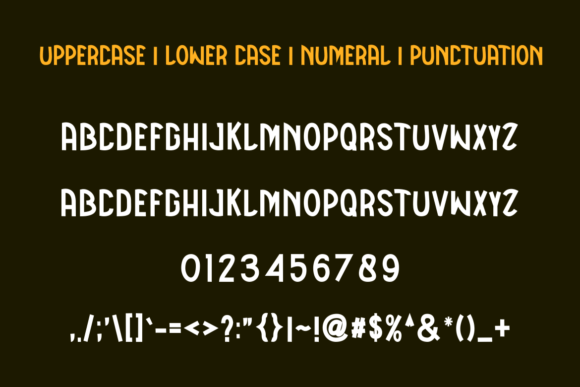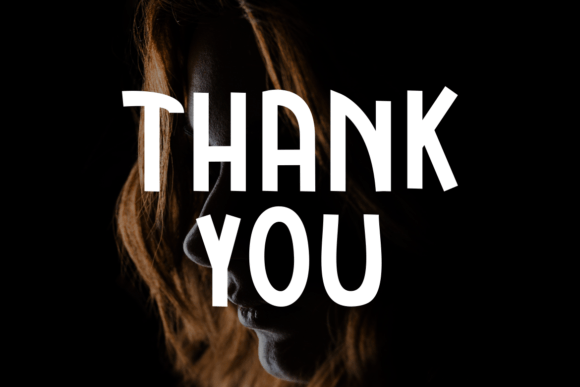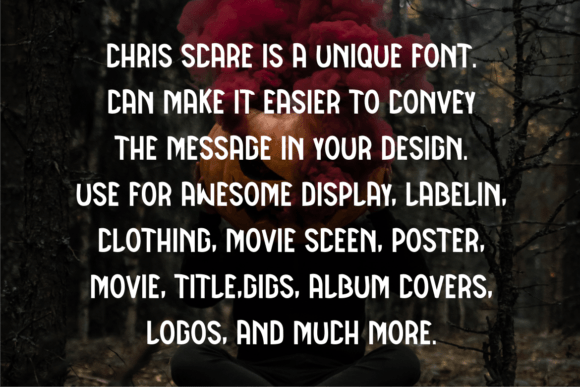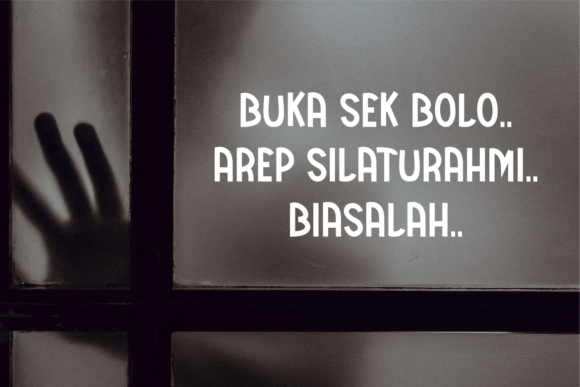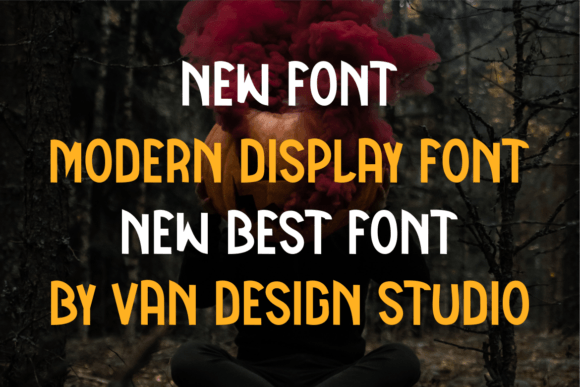
Introducing Chris Scare Font: The Bold and Assertive Sans Serif Game-Changer
In the world of typography, fonts play a crucial role in conveying messages, expressing emotions, and creating visual identities. For designers, crafters, and creative enthusiasts, finding the right font can make all the difference in elevating their work from ordinary to extraordinary. This is where Chris Scare Font comes into play – a bold and assertive sans serif font that is poised to revolutionize your font library.
What Makes Chris Scare Font Stand Out?
Chris Scare Font is a sans serif font that exudes confidence and assertiveness. Its bold and clean lines make it perfect for a wide range of applications, from headlines and titles to logos and branding materials. Whether you’re working on a graphic design project, crafting a DIY tutorial, or creating digital content, Chris Scare Font is an incredible asset to have in your toolkit.
One of the key features that sets Chris Scare Font apart is its versatility. It can be used for various topics and themes, from modern and edgy to playful and creative. The font’s neutral tone allows it to adapt seamlessly to different contexts, making it an excellent choice for designers and crafters who work on diverse projects.
The Benefits of Using Chris Scare Font
So, what benefits can you expect from using Chris Scare Font in your projects? Here are a few:
- Attention-grabbing headlines: Chris Scare Font is designed to make a statement. Its bold and assertive style ensures that your headlines and titles grab attention and make a lasting impression.
- Enhanced visual identity: With Chris Scare Font, you can create a strong and cohesive visual identity for your brand, product, or service. The font’s clean lines and modern aesthetic make it perfect for logos, branding materials, and marketing collateral.
- Improved readability: Despite its bold style, Chris Scare Font is surprisingly readable, even at smaller sizes. This makes it an excellent choice for body text, captions, and other applications where legibility is crucial.
- Endless creative possibilities: Chris Scare Font is an incredibly versatile font that can be used for a wide range of creative projects, from graphic design and crafting to digital content creation and more.
How to Use Chris Scare Font in Your Projects
Using Chris Scare Font in your projects is easy. Here are a few tips to get you started:
- Pair it with complementary fonts: Chris Scare Font works well with a variety of fonts, from serif and script fonts to other sans serif fonts. Experiment with different pairings to find the perfect combination for your project.
- Experiment with different sizes and colors: Chris Scare Font is a bold font, but that doesn’t mean you can’t experiment with different sizes and colors. Try using it in various sizes and colors to create visual interest and hierarchy.
- Use it consistently: To create a strong visual identity, use Chris Scare Font consistently throughout your project. This will help tie everything together and create a cohesive look.
In conclusion, Chris Scare Font is a bold and assertive sans serif font that is sure to elevate your creative projects. Its versatility, attention-grabbing style, and improved readability make it an excellent addition to any font library. Whether you’re a designer, crafter, or creative enthusiast, Chris Scare Font is a must-have font that will help you take your work to the next level.